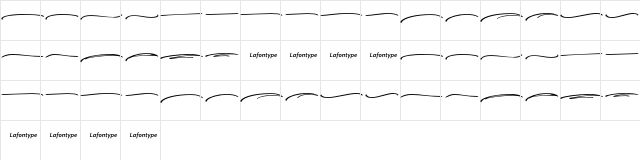
Saltines Swash Regular
| Foundry | Anugrah Pasau |
| Designer | Anugrah Pasau |
Design Context for Saltines Swash Typeface
Saltines Swash flows with the natural rhythm of handwritten lettering, making it ideal for designs that call for warmth and personal expression.
Font Pairing: Combine Saltines Swash with a simple geometric sans for maximum contrast — the tension between flowing curves and clean structure is a classic typographic pairing.